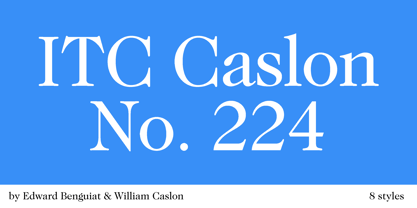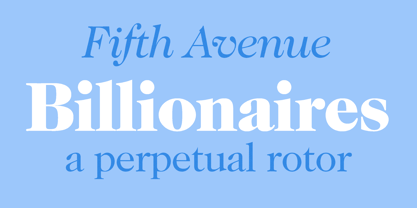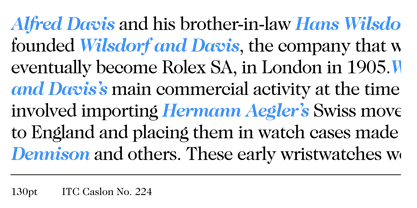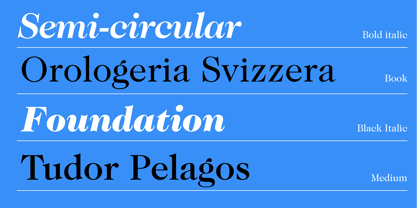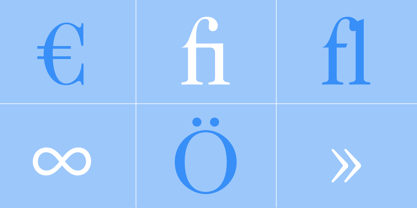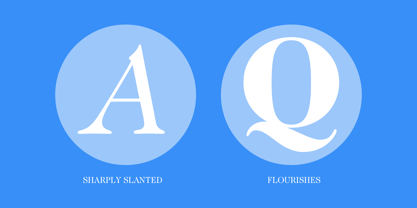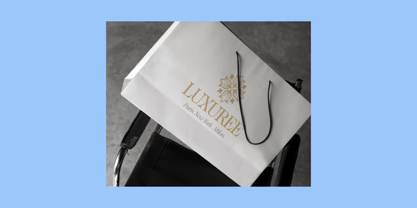
ITC Caslon No. 224
ITC Caslon No. 224™
by ITC
ITC Caslon No. 224 Font Family was designed by Edward Benguiat, William Caslon and published by ITC. ITC Caslon No. 224 contains 8 styles family package options.
The Englishman William Caslon (1672-1766) first cut his typeface Caslon in 1725. His major influences were the Dutch designers Christoffel van Dijcks and Dirck Voskens. The Caslon font was long known as the script of kings, although on the other side of the political spectrum, the Americans used it as well for their Declaration of Independence. The characteristics of the earlier Renaissance typefaces are only barely detectable. The serifs are finer and the axis of the curvature is almost or completely vertical. The overall impression which Caslon makes is serious, elegant and linear. Next to Baskerville, Caslon font is known as the embodiment of the English Baroque-Antiqua and has gone through numerous new interpretations, meaning that every Caslon is slightly different. ITC Caslon 224 was designed by Edward Benguiat and appeared with ITC in 1982. It is the text font which expanded upon the title font ITC Caslon 223. The alterations in the proportions of the letters make this Caslon 224 a noticeable departure from the original, but make the font overall more legible.